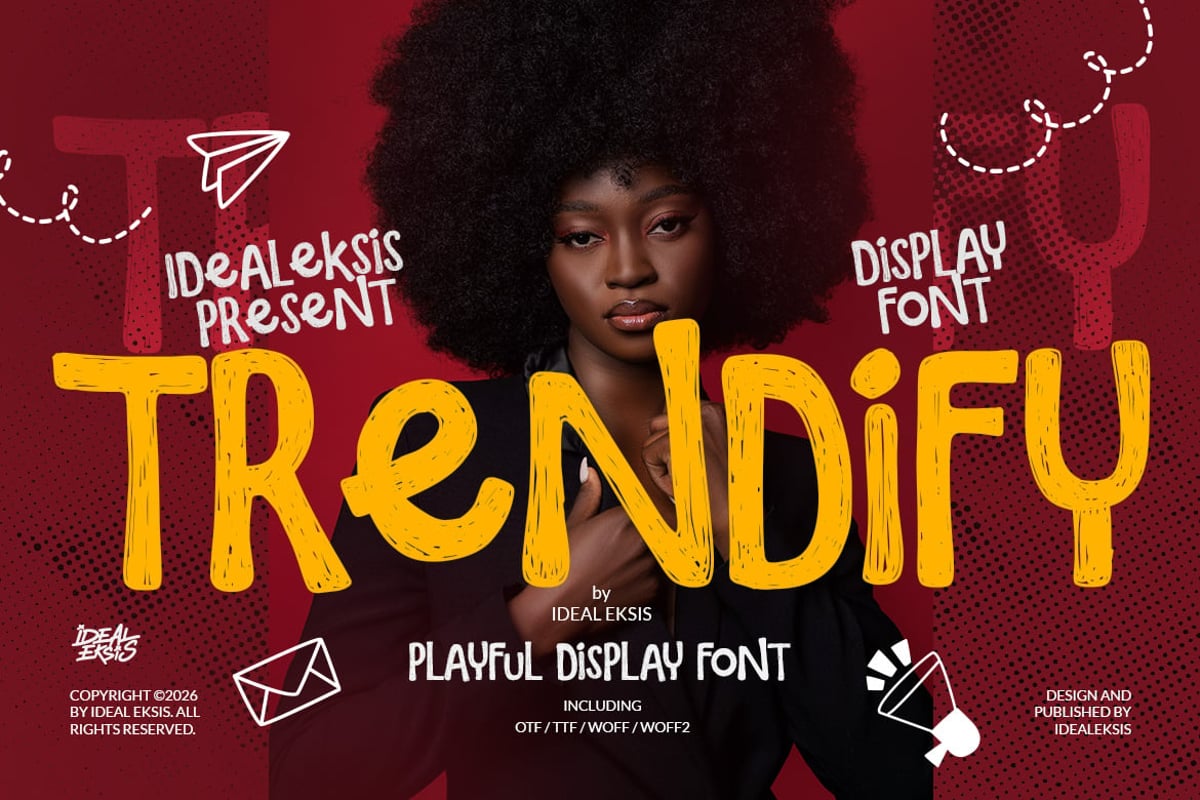
Trendify - Fun Font
Command attention with Trendify's bold, energetic strokes and playful marker-style texture perfect for standout designs. This dynamic display font features thick, hand-drawn letterforms with an intentionally irregular baseline and varying heights that create a youthful, energetic personality. The rounded terminals and heavy weight deliver maximum visual impact, while the textured, marker-like finish adds authentic hand-crafted charm. Ideal for large-scale applications including posters, social m...